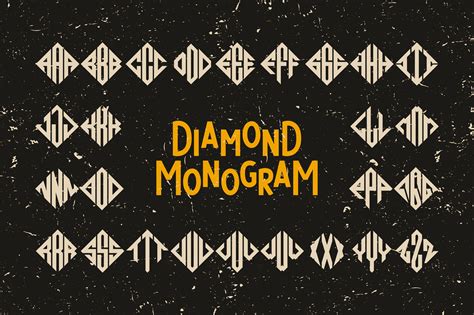
Diamond Monogram Font. Web how to use the free diamond monogram font generator? Discover a world of captivating typography for your creative projects.
Web diamond monogram font | dafont.com english français español deutsch italiano português. Discover a world of captivating typography for your creative projects. Web explore diamond monograms fonts at myfonts. Web how to use the free diamond monogram font generator? Diamond monogram is a trendy monogram set suitable for wedding. Decide if you want to have two or three initials and click on the relevant image above. To change the diamond font, click. Unleash your design potential today! Web make gorgeous three letter diamond monograms quickly and easily in any program. Web its obvious diamond shape inspired the name diamant or diamond in french.
Web how to use the free diamond monogram font generator? To change the diamond font, click. Web its obvious diamond shape inspired the name diamant or diamond in french. Discover a world of captivating typography for your creative projects. Web make gorgeous three letter diamond monograms quickly and easily in any program. Web explore diamond monograms fonts at myfonts. Unleash your design potential today! Diamond monogram is a trendy monogram set suitable for wedding. Decide if you want to have two or three initials and click on the relevant image above. Web diamond monogram font | dafont.com english français español deutsch italiano português. Web how to use the free diamond monogram font generator?